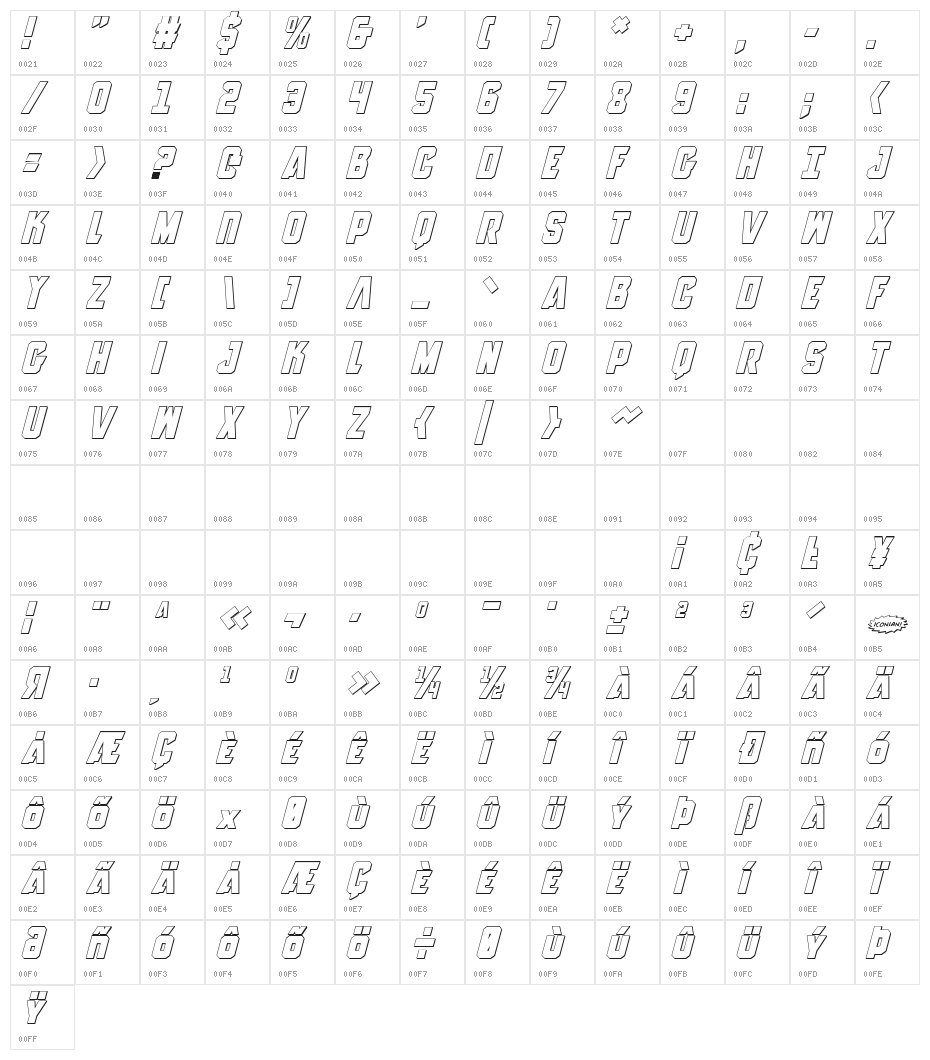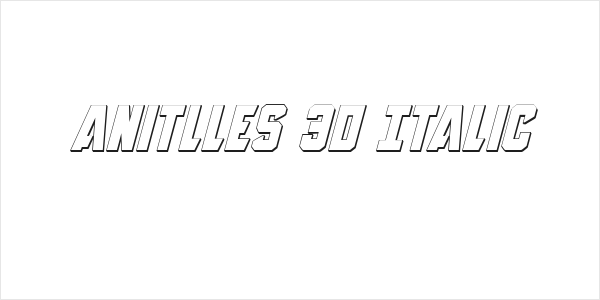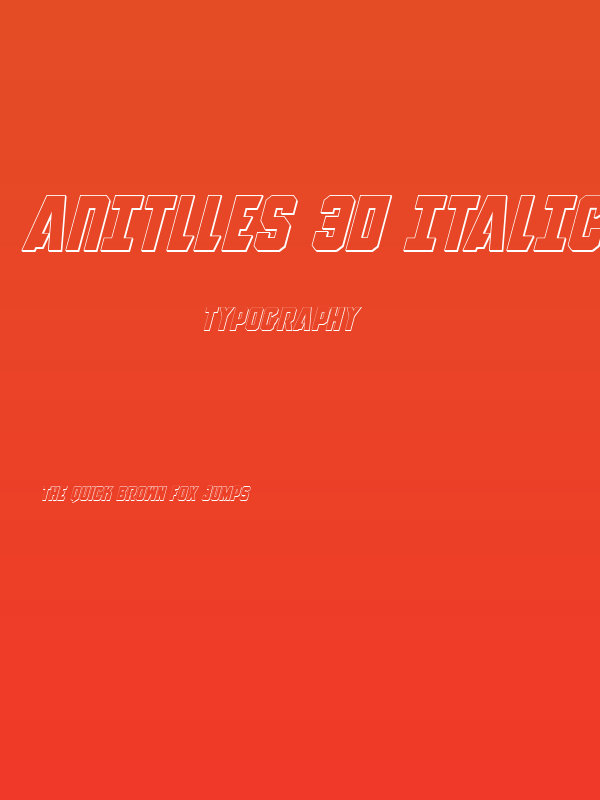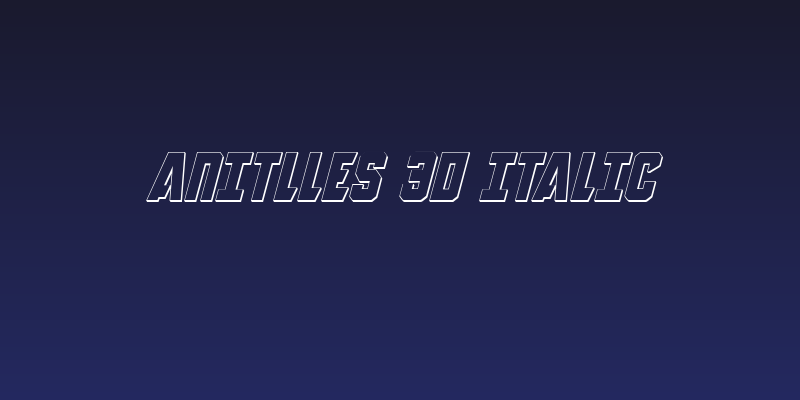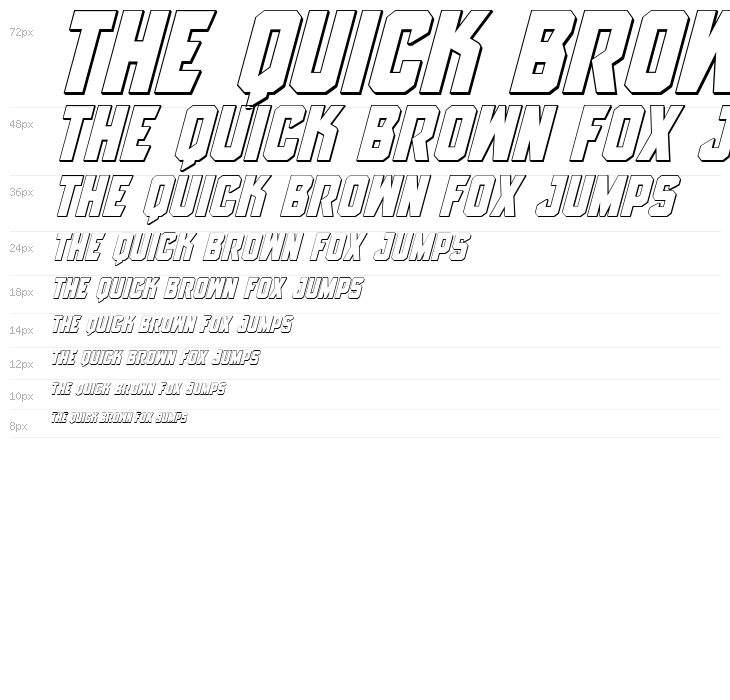
Anitlles 3D Italic Font
Anitlles 3D Italic Description
This font features a bold, three-dimensional style with an italic slant, giving it a dynamic and modern appearance. The characters are outlined, creating a striking visual effect that makes each letter stand out. The design is reminiscent of futuristic or sci-fi themes, with sharp angles and a sense of depth. The uppercase and lowercase letters maintain a consistent style, while the numbers and special characters complement the overall aesthetic. This font is ideal for projects that require a bold statement and a touch of modernity.
| Proposed Projects | Ideal for sci-fi themed posters, video game titles, or any project needing a bold, modern look. |